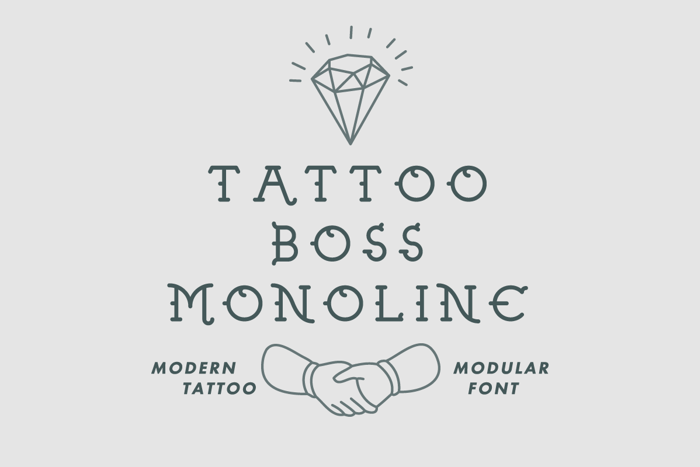
Tattoo Boss Monoline Font
Tattoo Boss Monoline is a geometric modular monoline tattoo font for merch designers and flash painters. The slab serif font is provided in three weights, and features a ton of alternates.